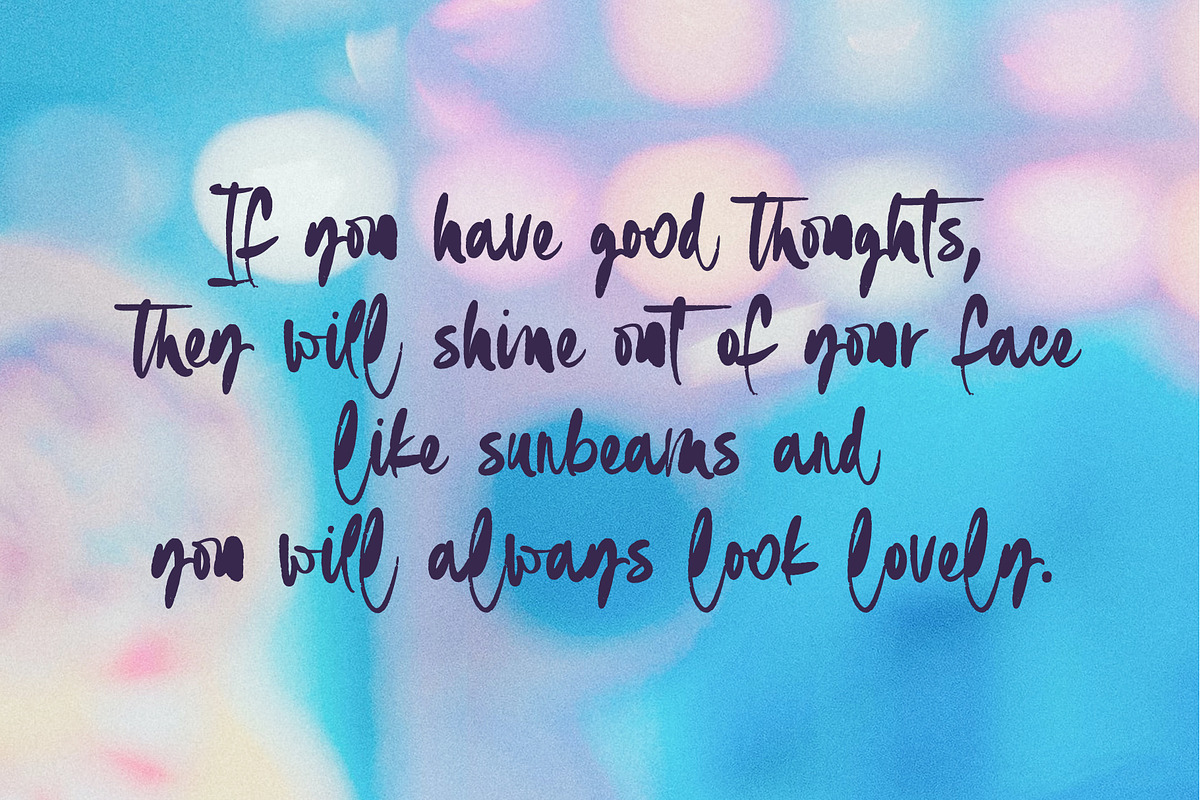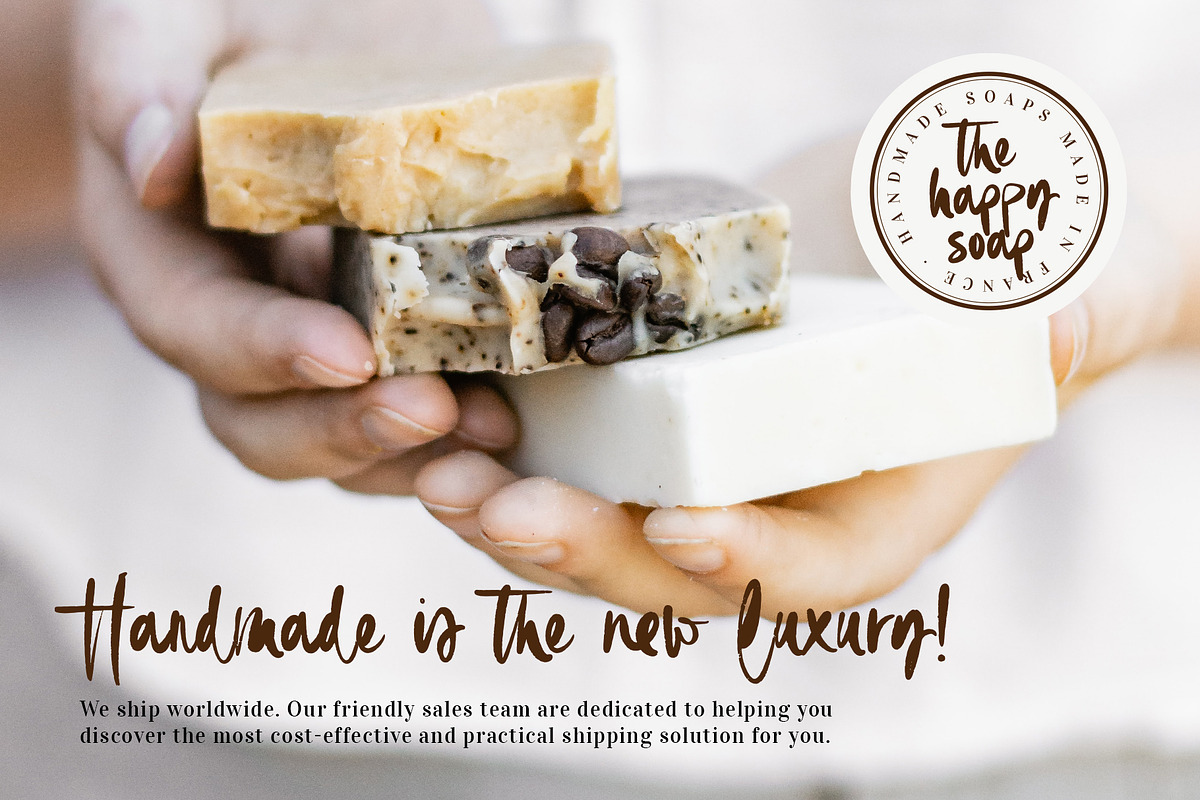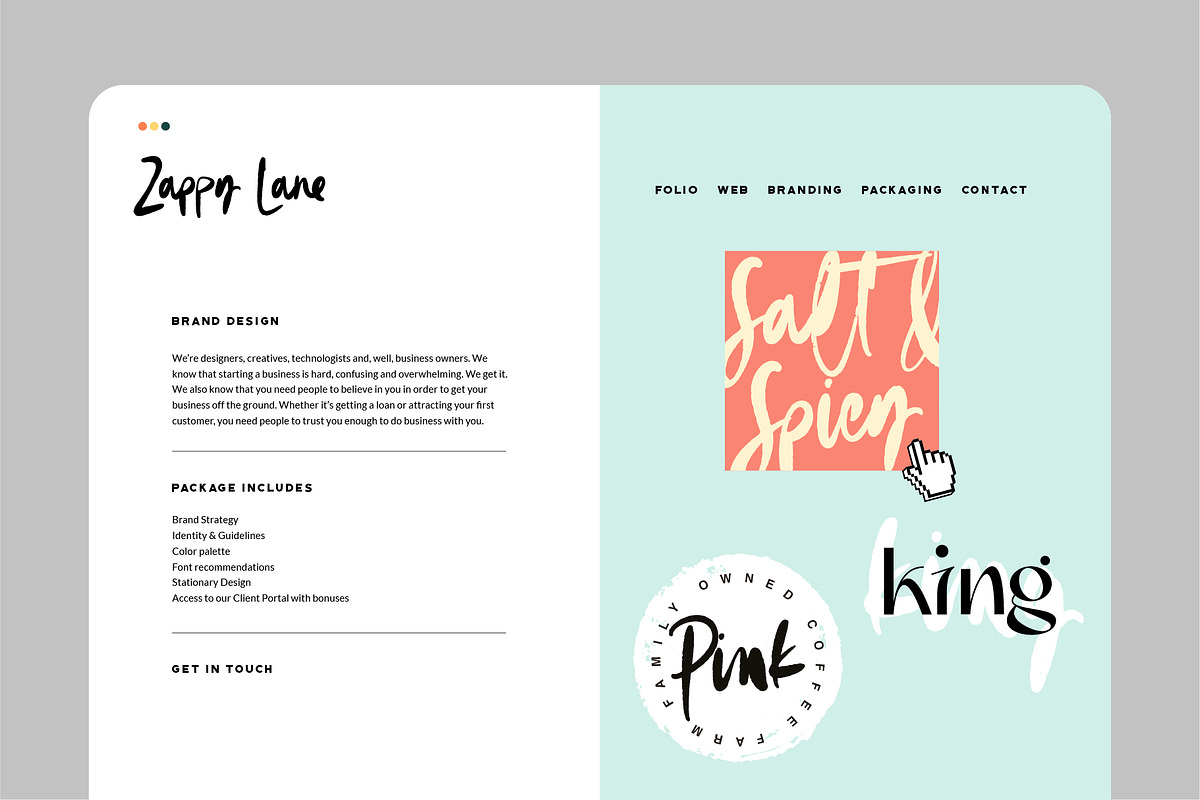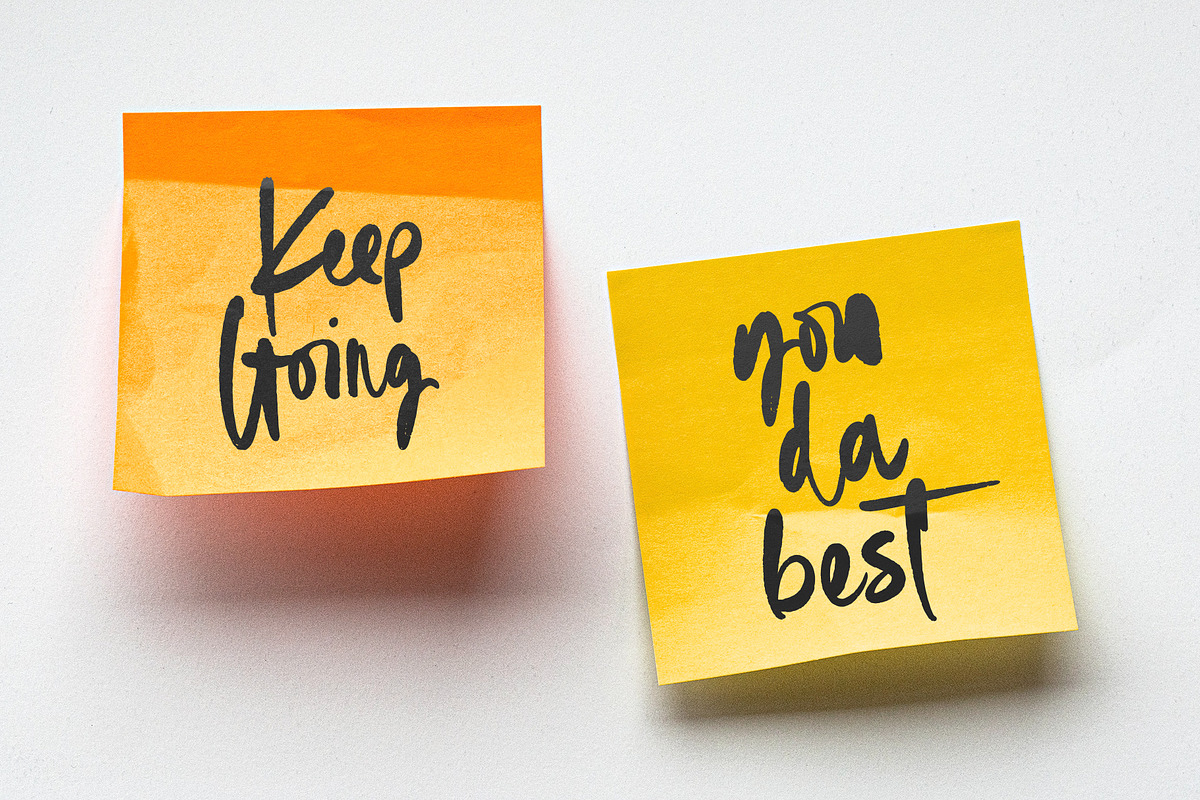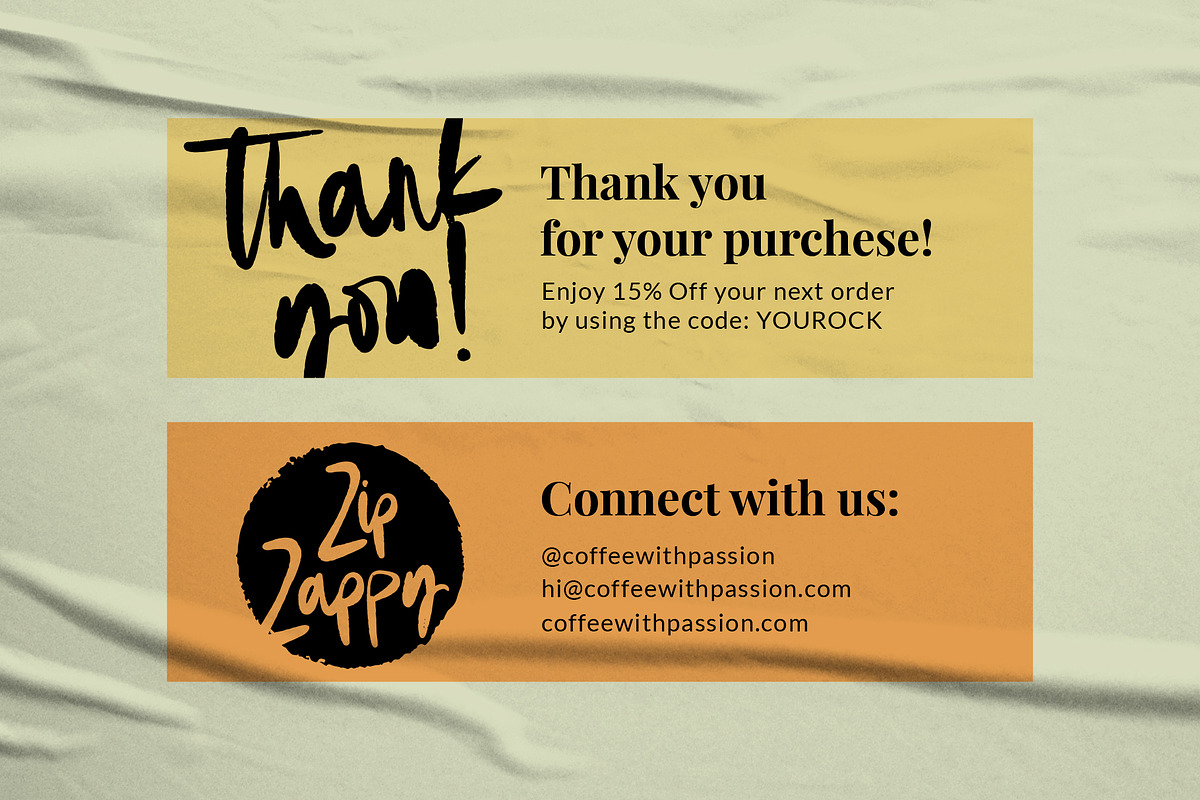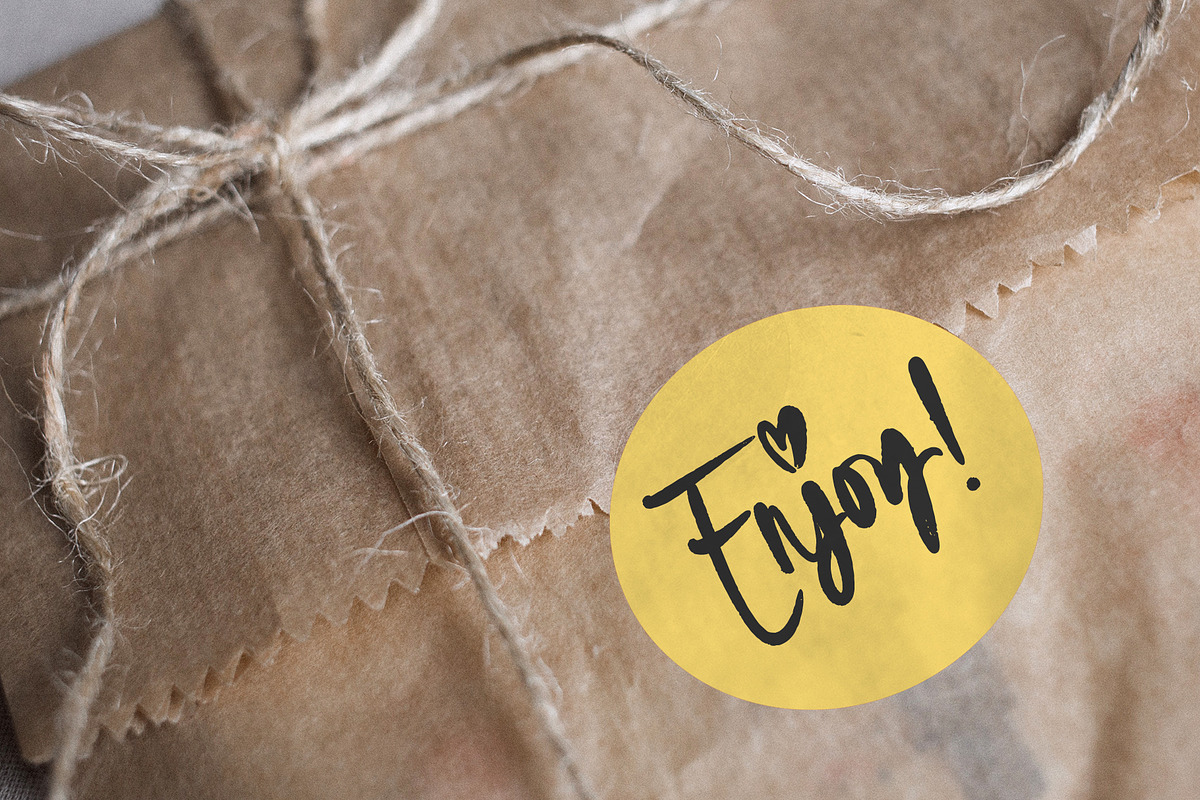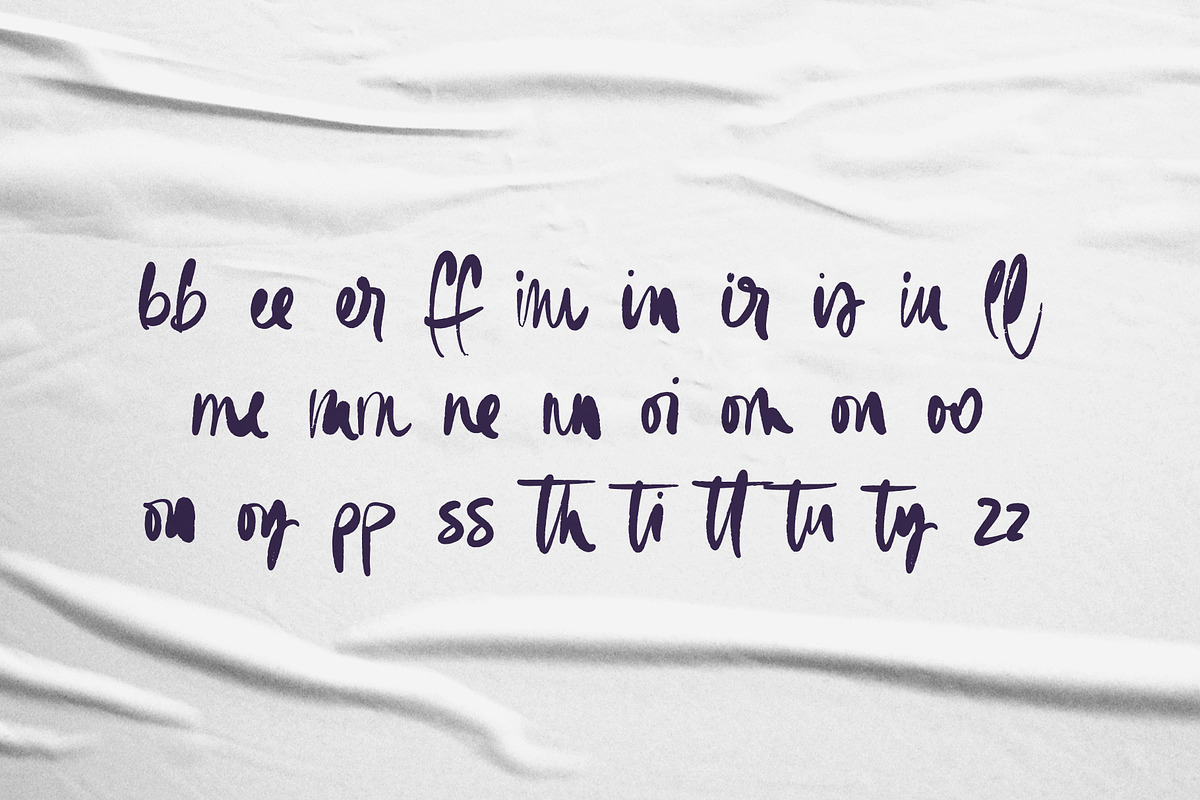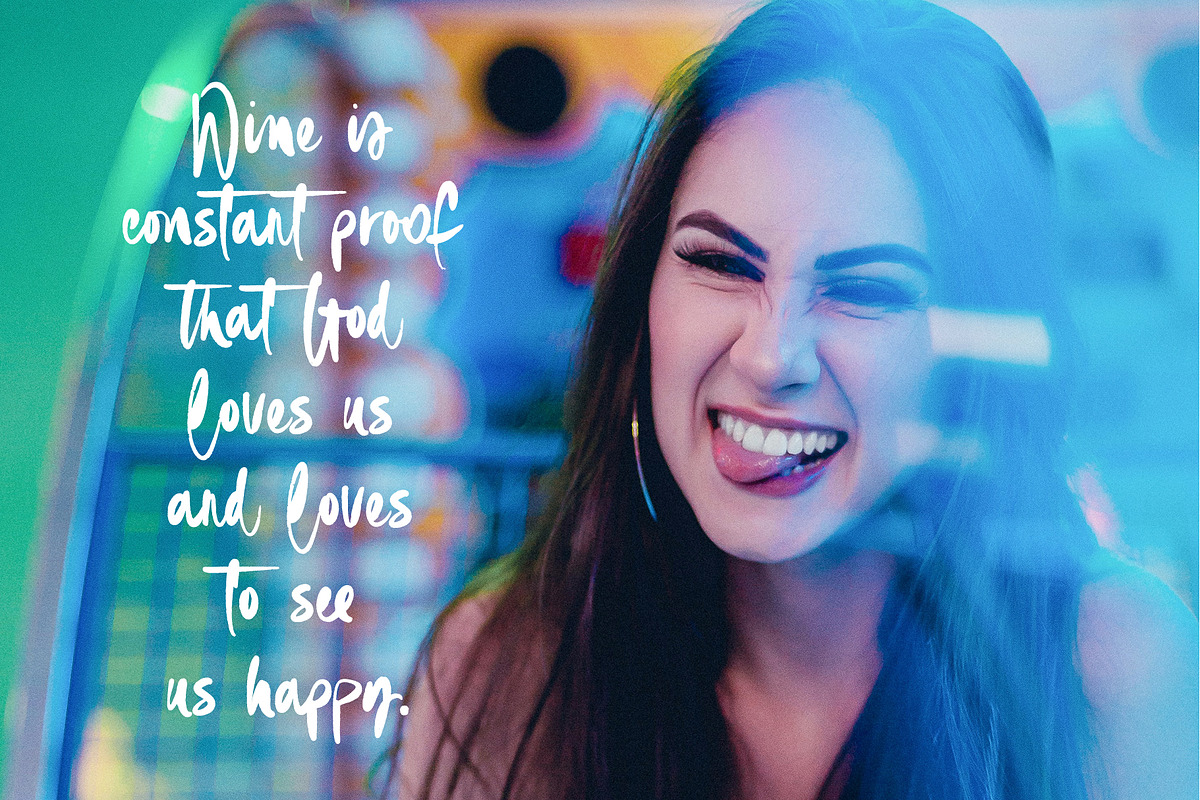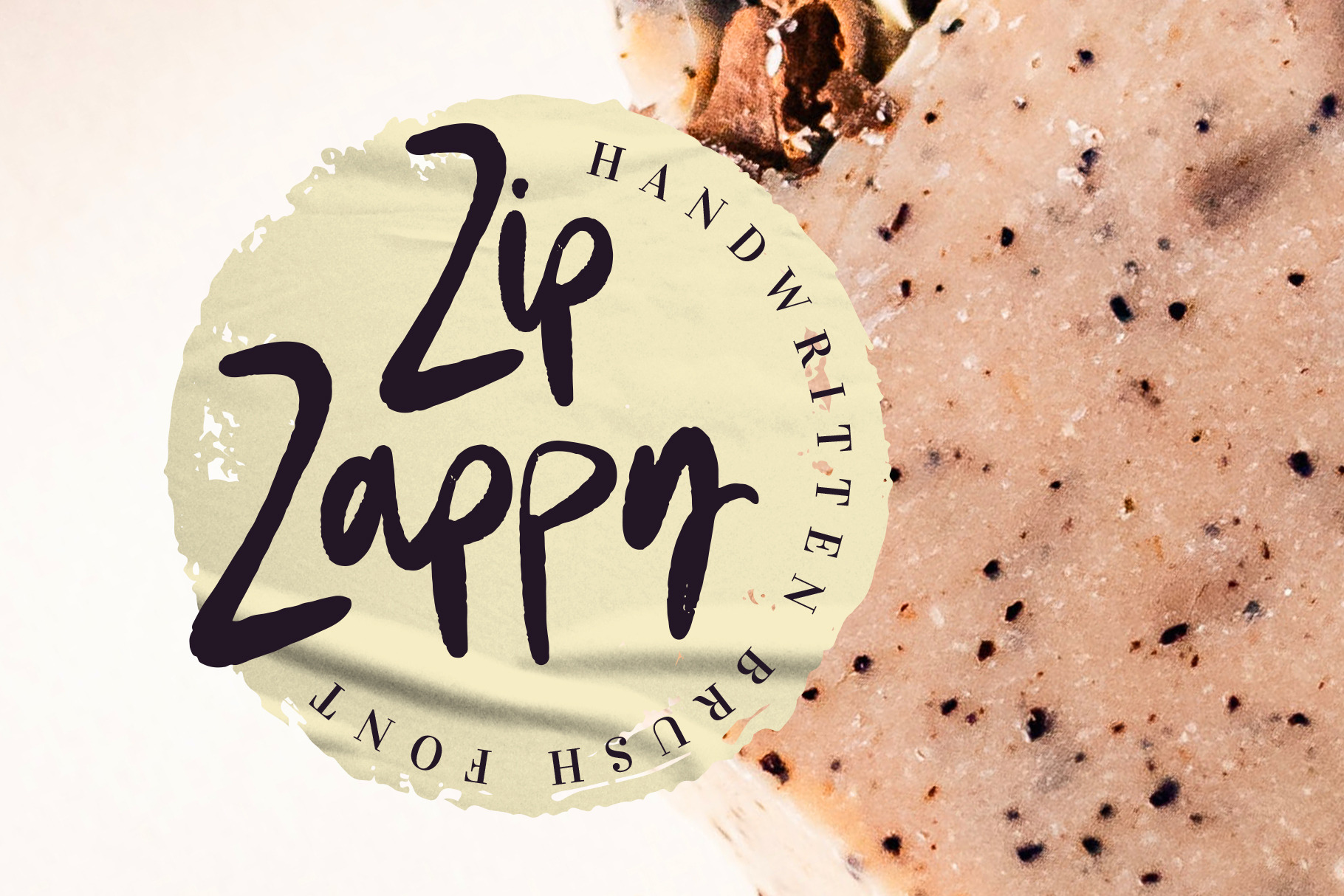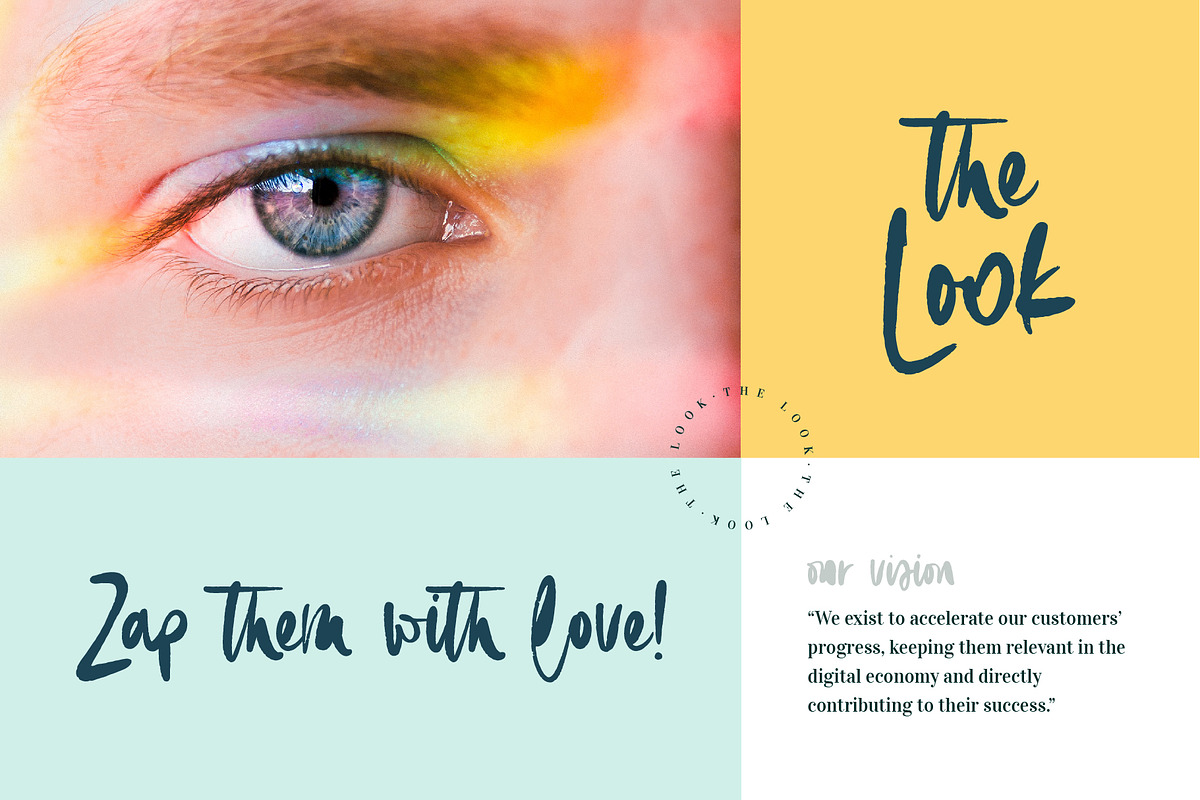
Zip Zappy Handritten Brush Font
Zip to the Zap to the happy Zappy! I am super, super happy to present to you Zip Zappy a sweet and casual handwritten brush font perfect to use in most of your design projects, from logos and branding to instagram quotes and headlines.
The font has some pretty dope ligatures built into their OpenType features, so make sure you turn the feature on to get the most of this font.